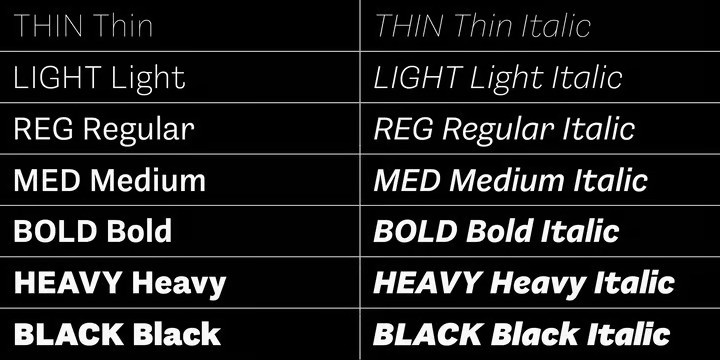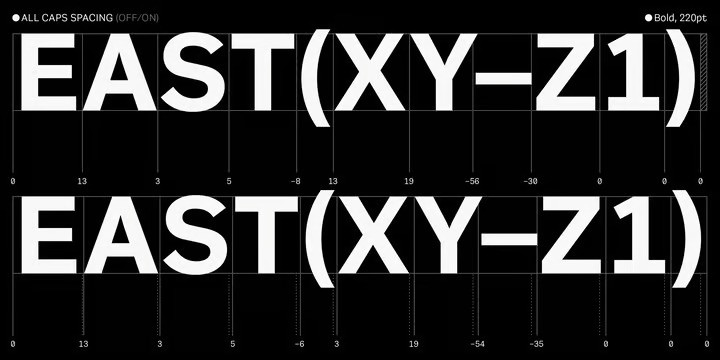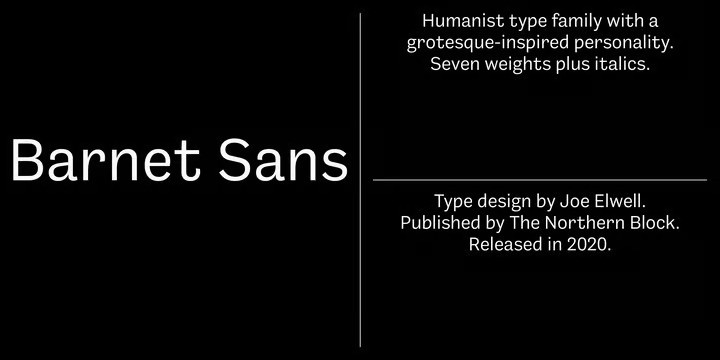
Barnet Sans Font
Barnet Sans Font is a humanist typeface with a grotesque-inspired personality. Lively stroke-endings of several characters give this design its distinctive style, as well as a friendly and approachable presence. Created for use in both print and screen settings, Barnet Sans delivers a hint of flavour in large sizes, while being subdued enough to work in smaller text-driven settings.
Details include; seven weights ranging from thin to black with matching italics, 665 characters per font, and support for all Western and Central European languages. Barnet Sans also comes equipped with many opentype features including; small caps, case-sensitive forms, arbitrary fractions, numerators and denominators, slashed zero, stylistic alternates and ligatures.